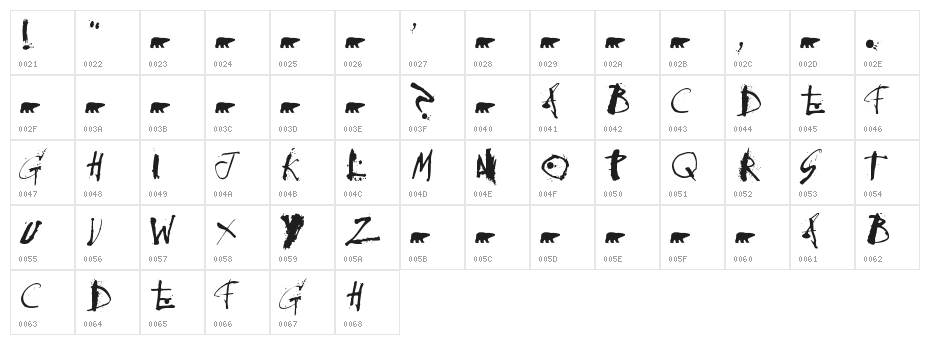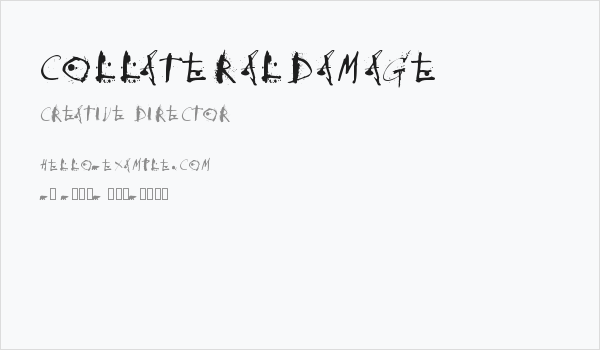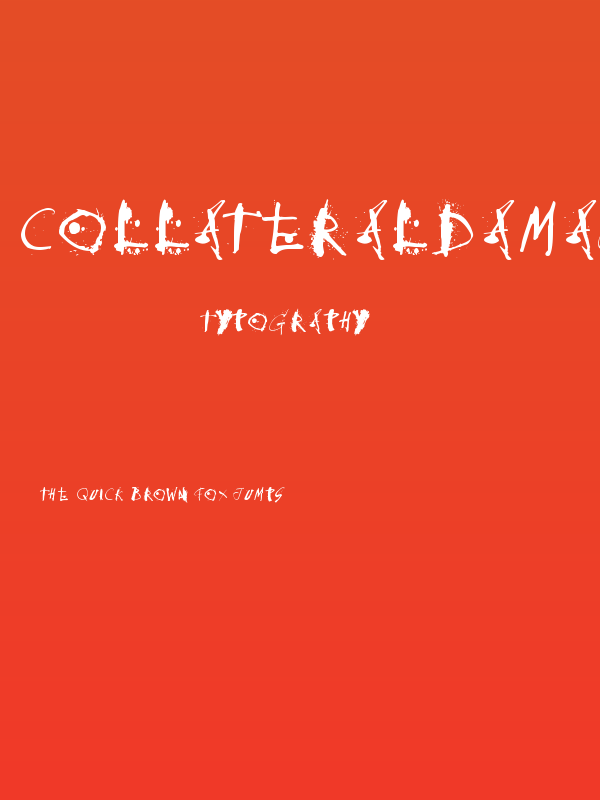
CollateralDamage Font
CollateralDamage Description
This font features a bold and expressive style, characterized by its brush-like strokes and splattered ink effects. The uppercase letters exhibit a dynamic and energetic appearance, with irregular edges and varying stroke widths that give a sense of movement and spontaneity. The lowercase letters maintain this artistic flair, providing a cohesive look across the alphabet. The numbers and special characters continue the theme, ensuring consistency throughout. This font's raw and edgy aesthetic makes it stand out, ideal for projects that require a strong visual impact.
Overall StyleModern, Artistic
Use CaseHeadlines, Logos, Posters
Proposed ProjectsIdeal for album covers, posters, street art designs, and edgy branding projects.